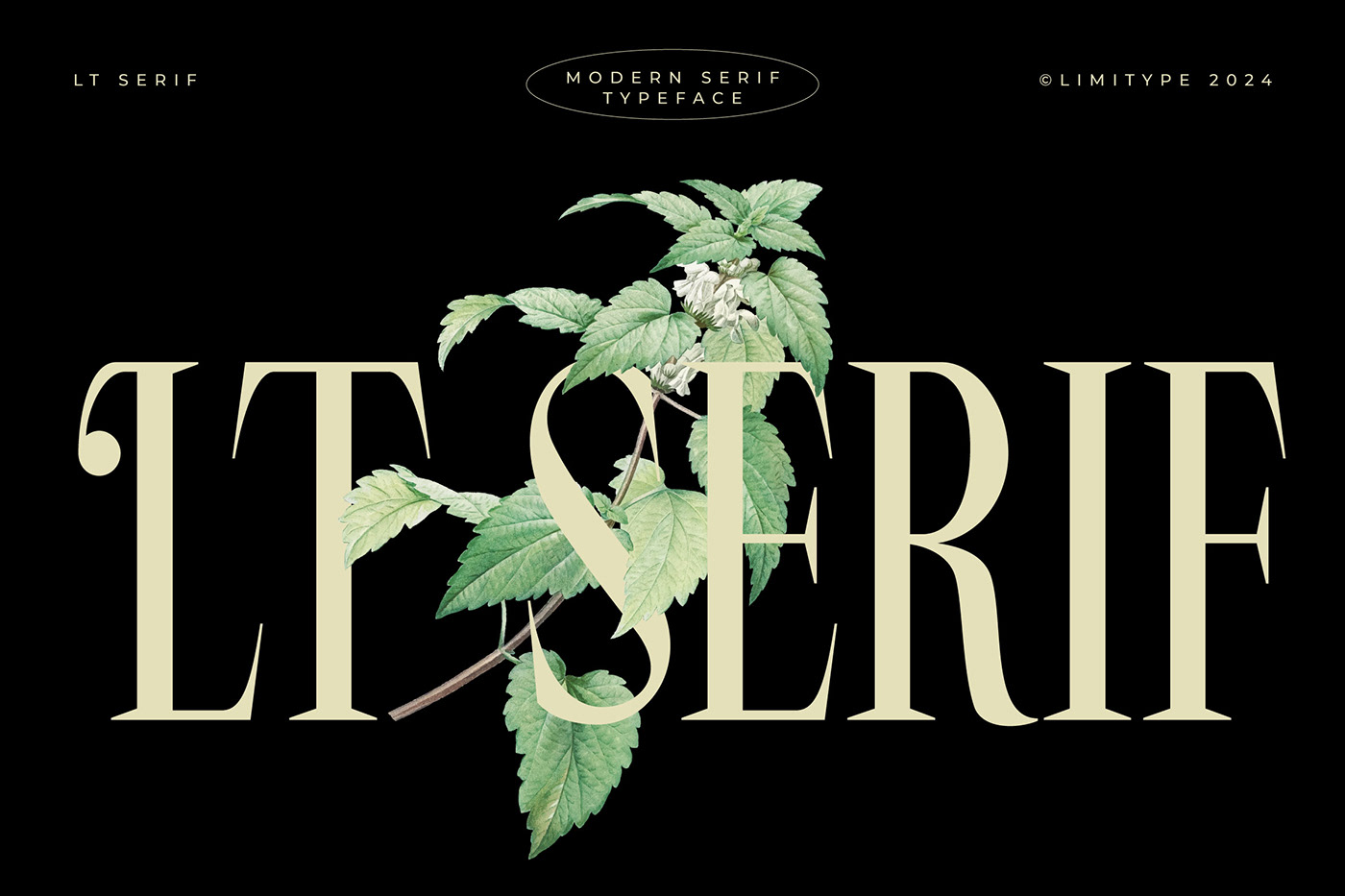
LT Serif - Modern Serif Font
LT Serif presents a modern, minimalist, and elegantly crafted serif font, featuring distinctive alternatives for select capital letters with stems. This versatile typeface is inclusive of uppercase, lowercase, symbols, alternates, numbers, and supports mu...